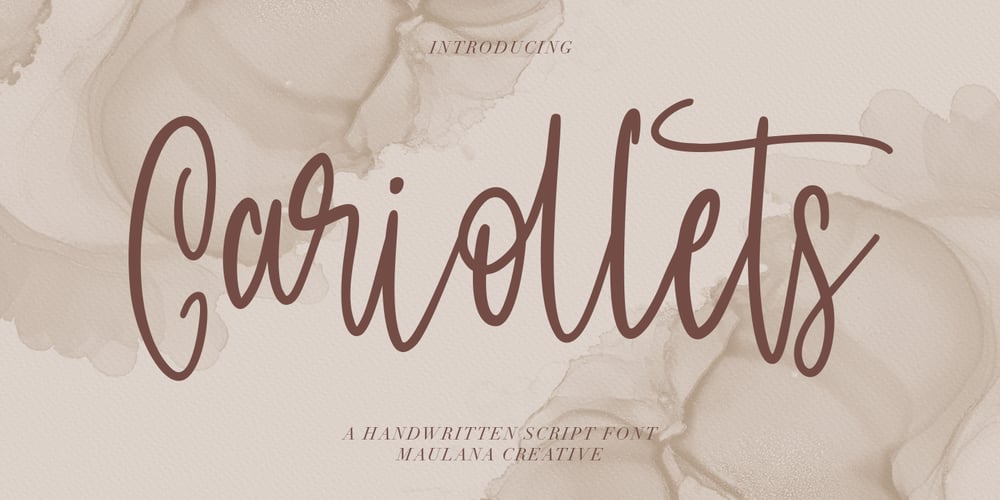
Cariollets
Cariollets font
Cariollets Font Family was designed by Gilang Maulana and published by Maulana Creative. Cariollets contains 1 styles and family package options. Cariollets Handwritten Script FontGive your designs an authentic handcrafted feel. Cariollets Handwritten Script Font is perfectly suited to logo, stationery, branding, typography quotes, magazine or book cover, website header, clothing, branding, packaging design, restaurant and more.